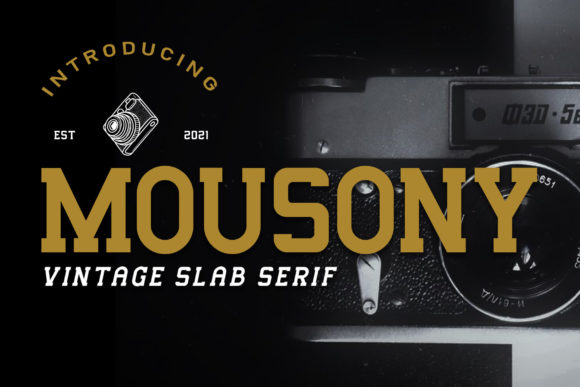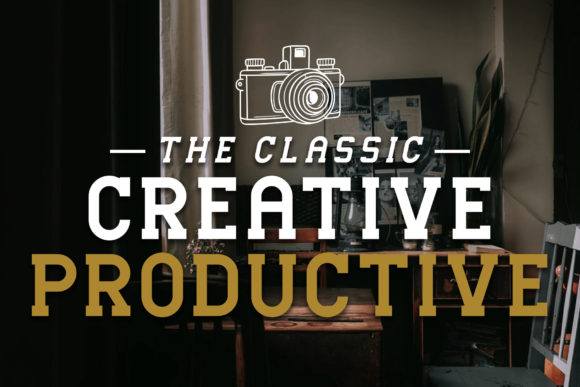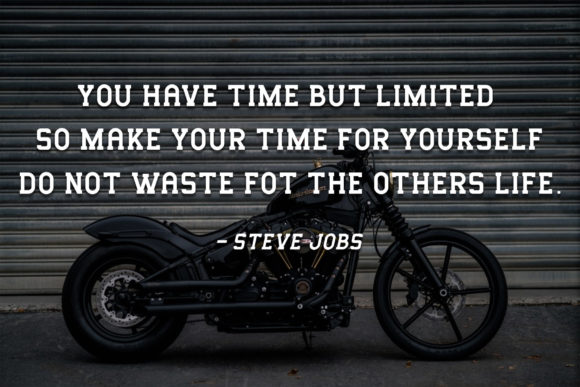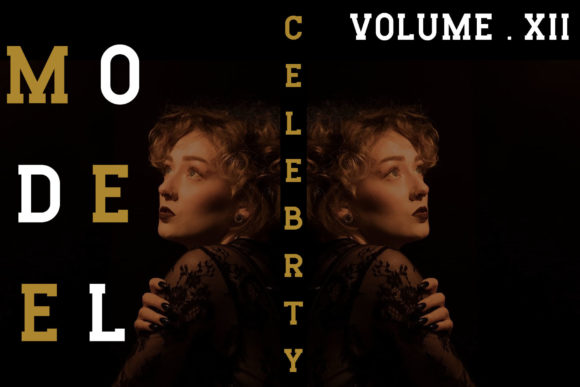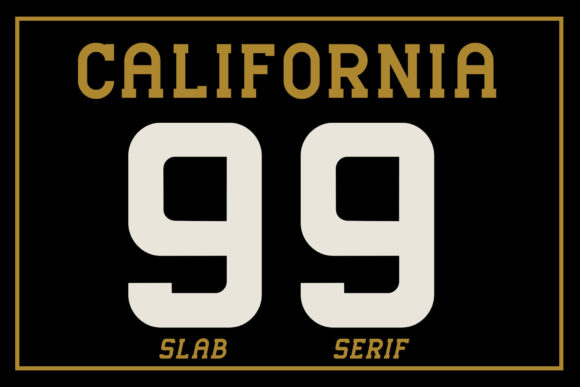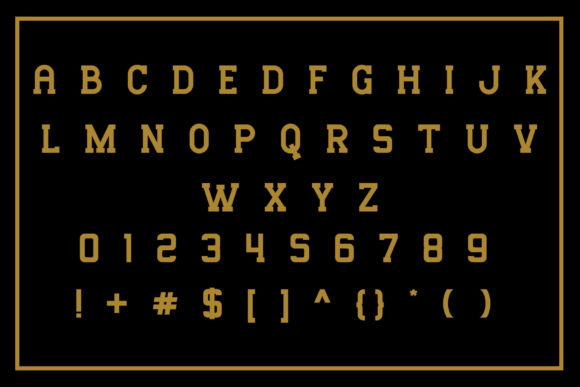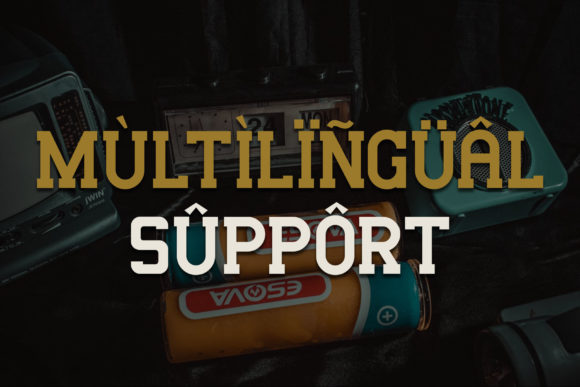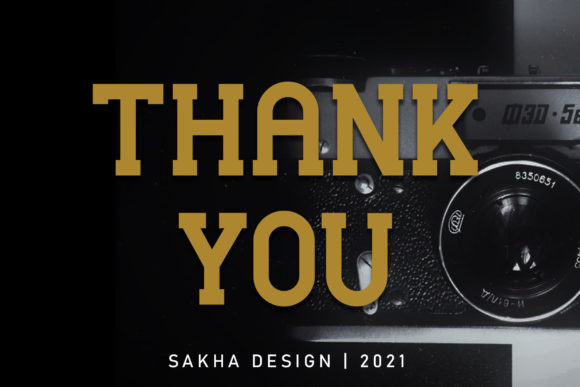
Mousony
Mousony: A Bold and Vintage-Styled Slab Serif Font
Mousony is a distinctive slab serif font that combines boldness with a vintage aesthetic and thick letterforms. This versatile typeface is designed to elevate a wide range of crafting ideas, making it a powerful tool for various creative projects.
Key Features of Mousony
• Bold Design: Features strong, eye-catching letterforms that command attention.
• Vintage Style: Incorporates design elements reminiscent of classic typography, evoking a sense of nostalgia.
• Thick Lettering: Offers substantial characters for maximum visual impact.
• Slab Serif Structure: Maintains the characteristic thick, rectangular serifs typical of slab serif fonts.
• Versatile Application: Suitable for a wide range of crafting projects, from print to digital media.
Ideal Uses for Mousony
Mousony’s unique characteristics make it particularly well-suited for:
• Greeting cards and invitations
• Branding projects requiring a vintage touch
• Labels for artisanal products
• Poster and advertisement layouts
• Website headers and digital content aimed at creating a retro feel
When incorporating Mousony into your designs, consider the following tips:
• Use for headlines or short blocks of text to maximize its bold impact
• Experiment with different sizes to highlight the font’s vintage-inspired details
• Pair with simpler, lighter weight fonts for body text to create contrast
• Take advantage of its thick lettering in projects where you want to convey strength and nostalgia
Mousony is an excellent choice for designers and crafters looking to add a bold, vintage-styled, and thick-lettered slab serif font to their creative toolkit. Its ability to elevate a wide range of crafting ideas makes it stand out in the world of typography. Whether you’re working on greeting cards, developing branding materials, or creating labels for artisanal products, Mousony offers the perfect blend of boldness and vintage charm.
Add Mousony confidently to your favorite creations and prepare to be amazed by the outcome. From striking headlines to impactful branding elements, this font provides the tools to create memorable typography that resonates with audiences seeking a bold, vintage aesthetic.